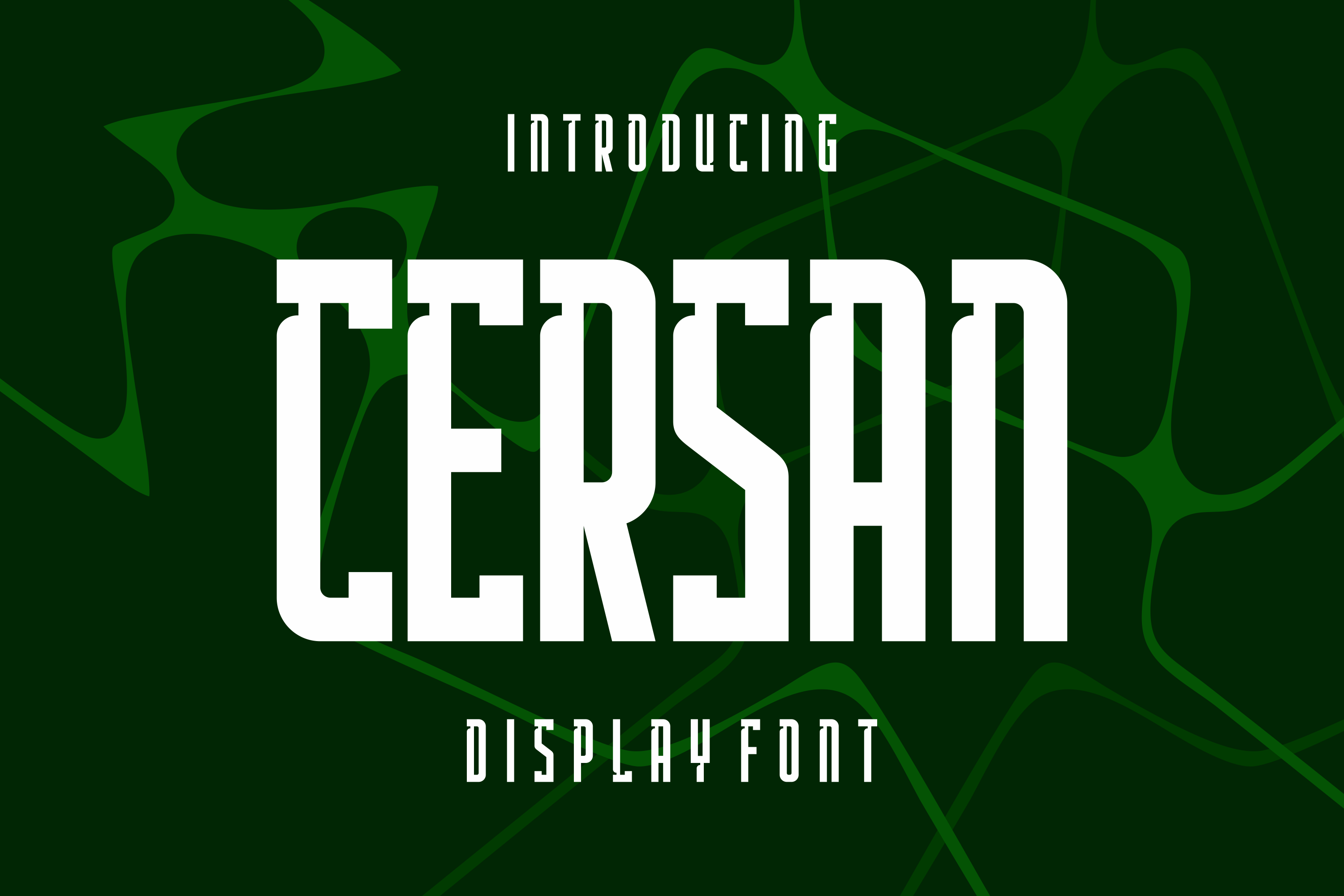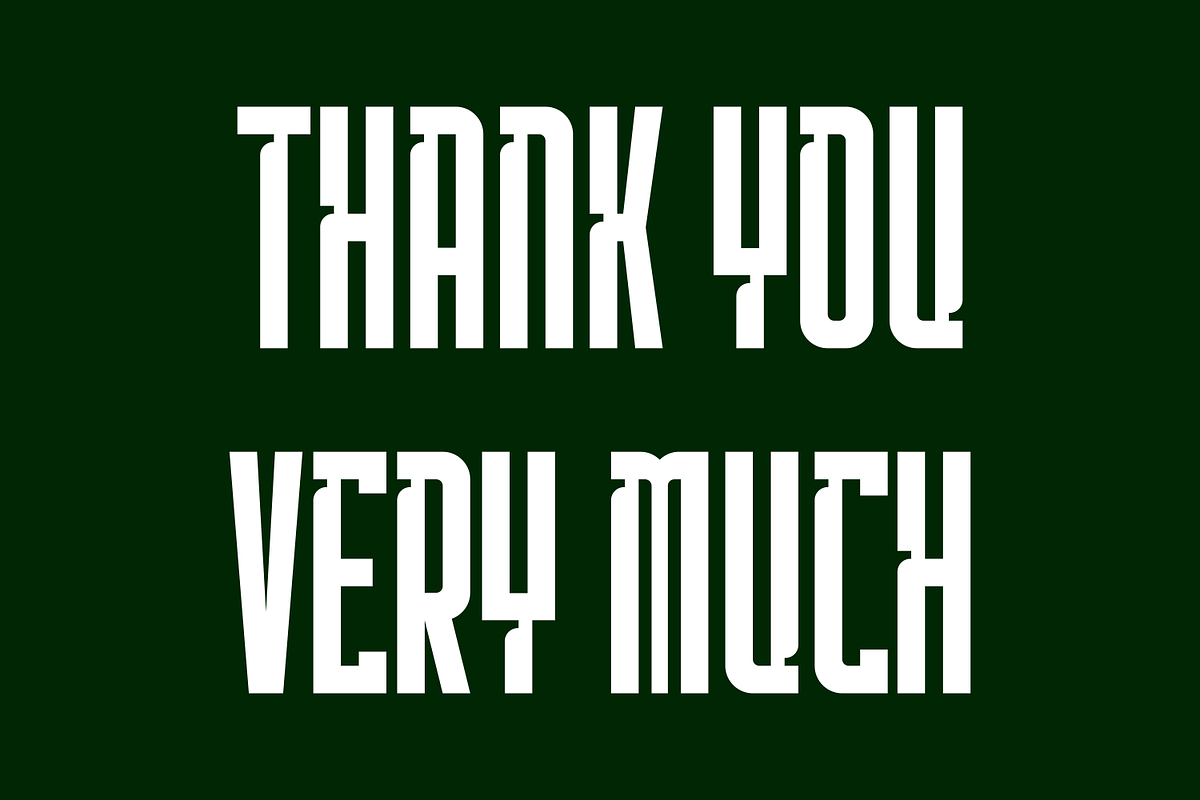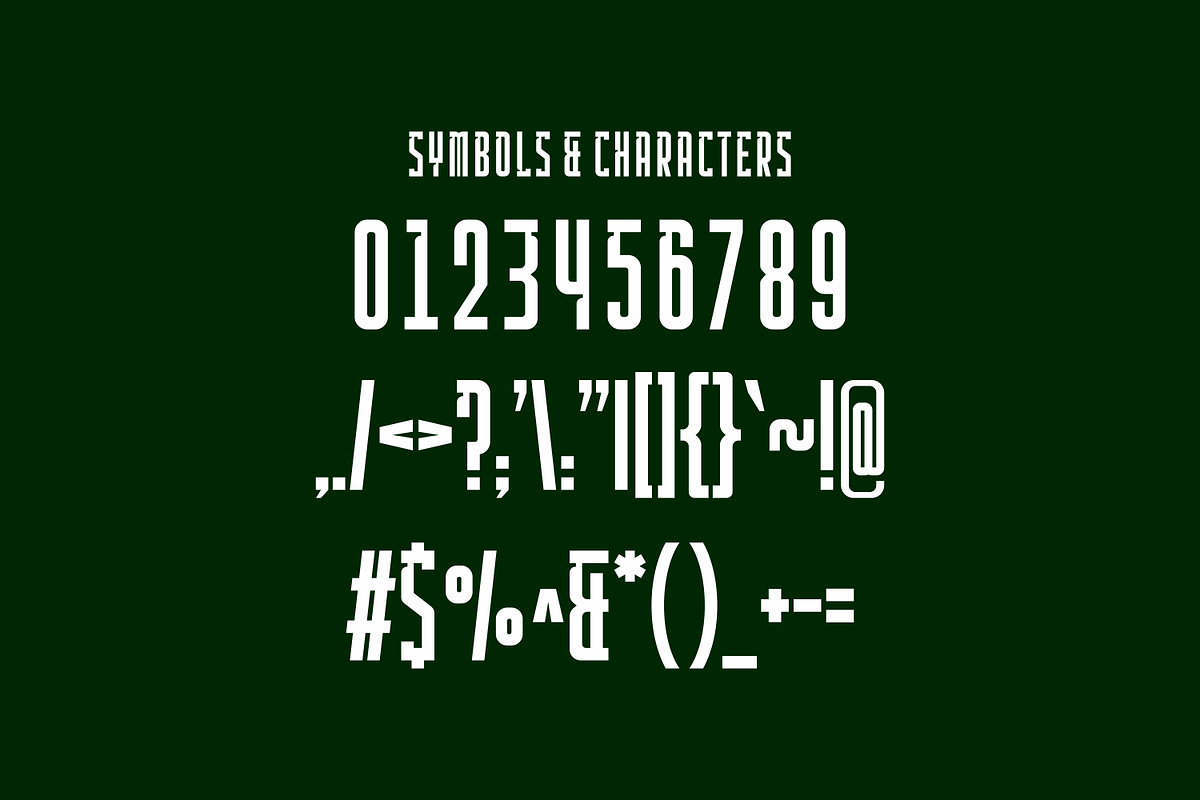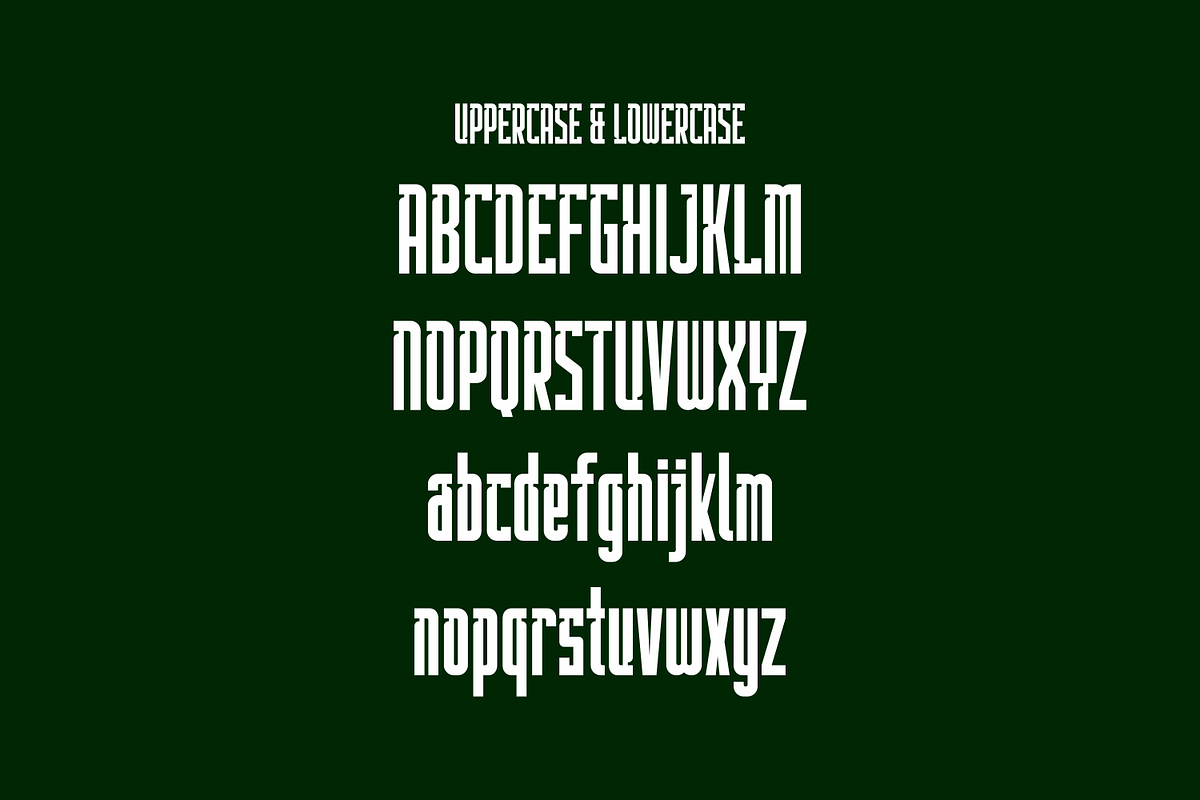
Cersan - Modern Display Font
Cersan - Modern Display Font Perfectly suited on print/screen. it’s perfect for Branding, name card, poster, logo, magazine, cover, banner, t-shirt and headers, or even large-scale artwork.